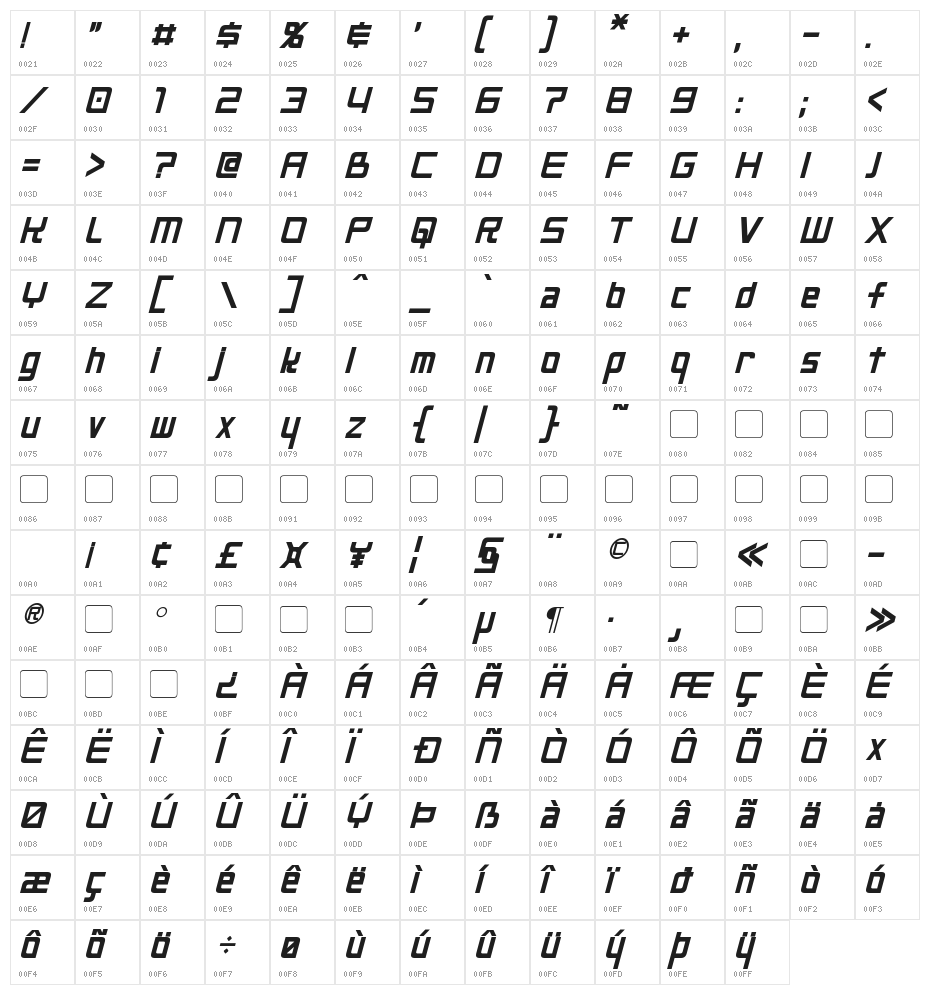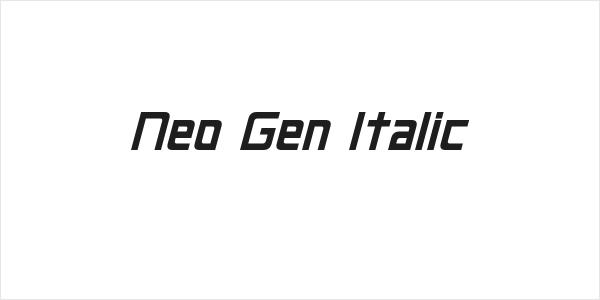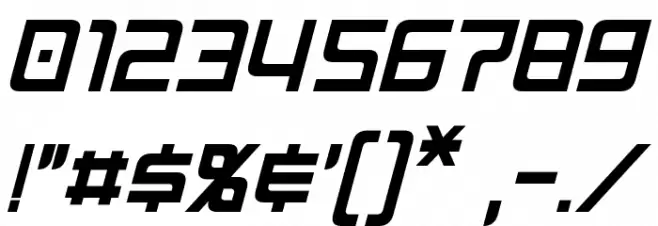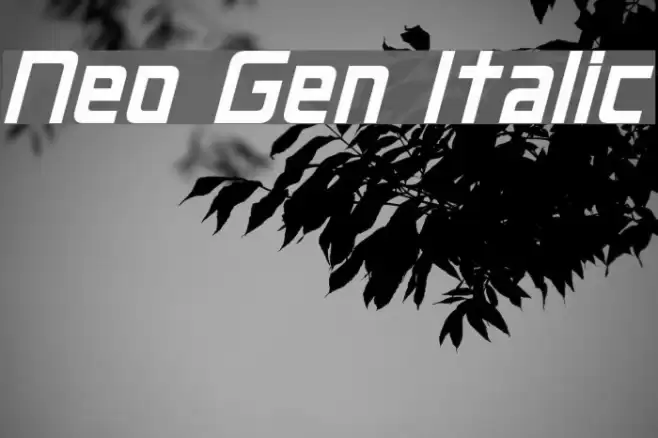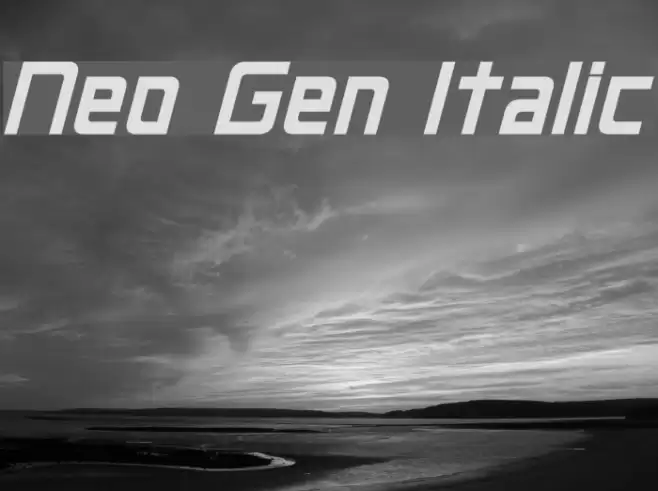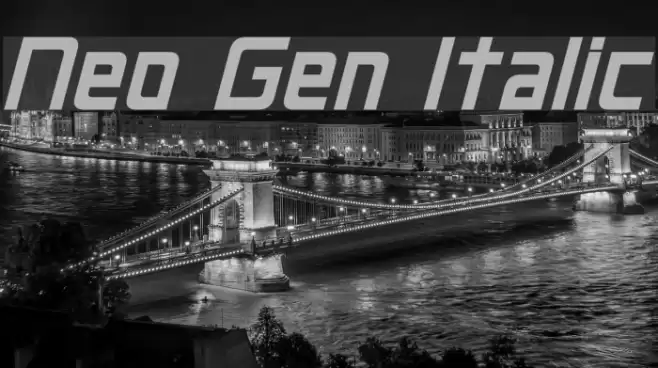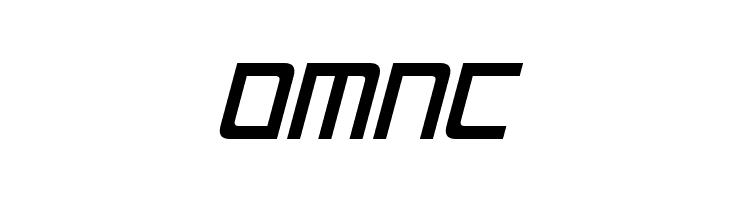
Neo Gen Italic Font
This font features a modern, italicized design with a sleek and futuristic appearance. The characters are slightly slanted, giving a sense of motion and dynamism. The strokes are consistent in thickness, providing a uniform look across all characters. The font maintains a geometric structure with sharp angles and clean lines, making it suitable for contemporary design projects. It includes a full set of uppercase and lowercase letters, numbers, and a variety of special characters, ensuring versatility in usage.
| Use Case | Headlines, Logos, Digital Interfaces |
| Proposed Projects | Ideal for technology branding, futuristic posters, digital interfaces, and modern advertising campaigns. |